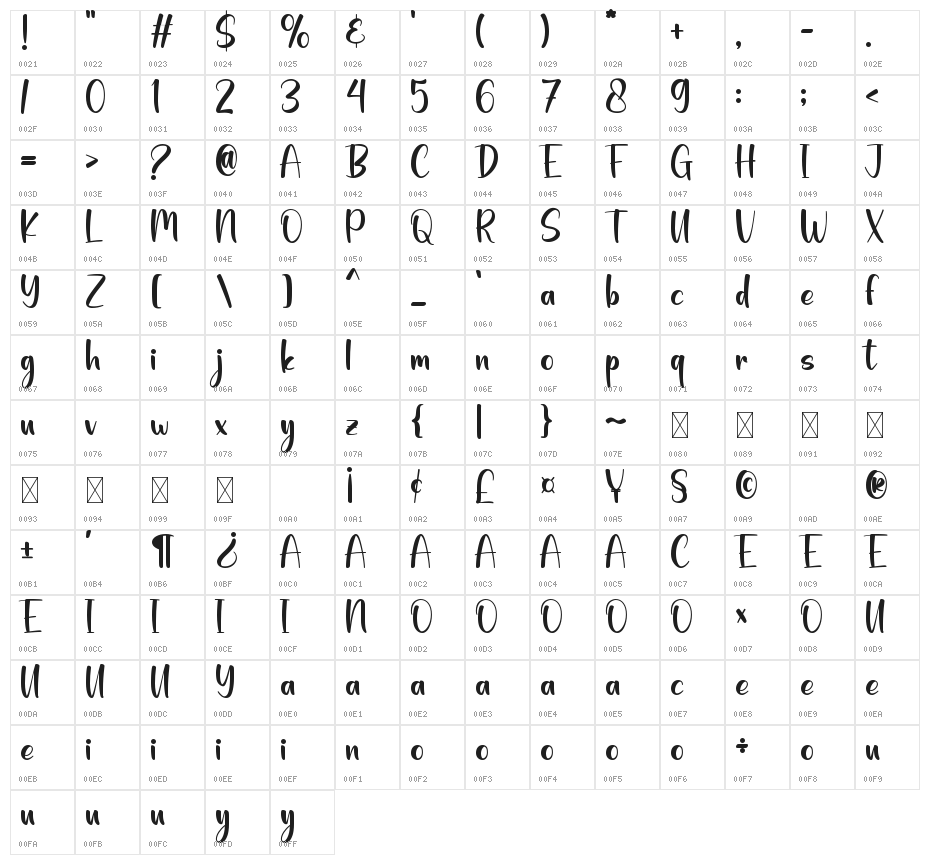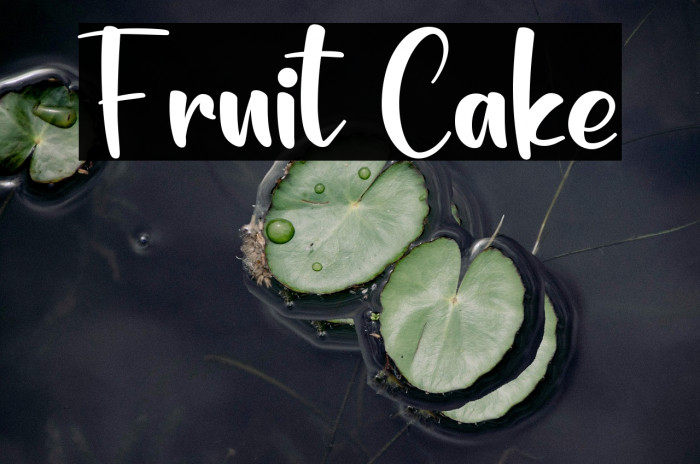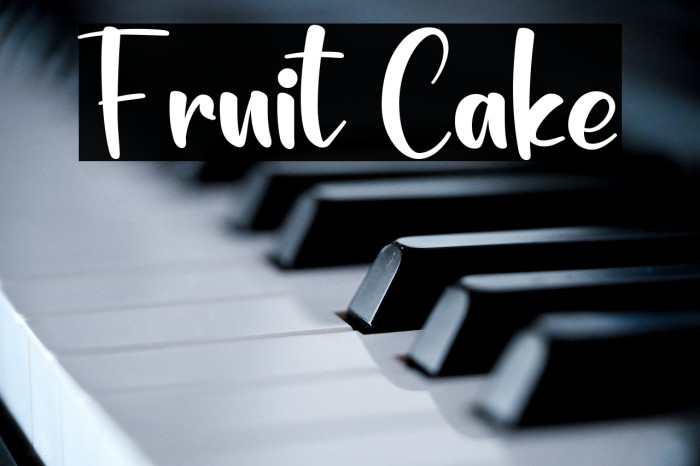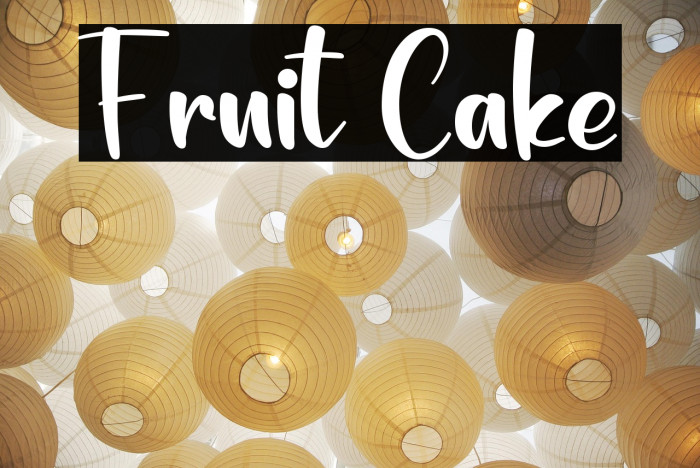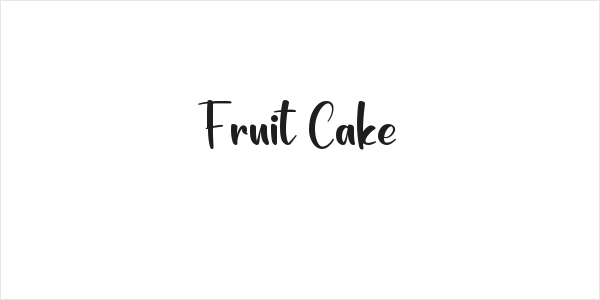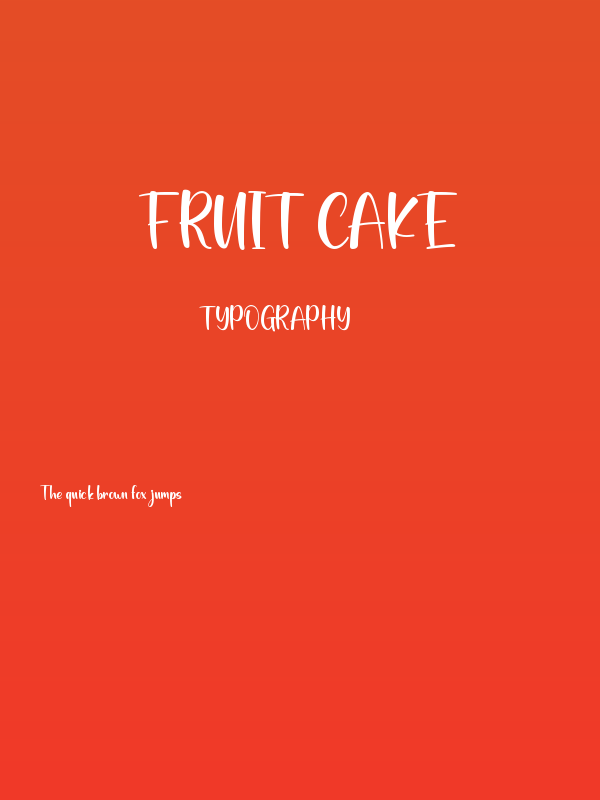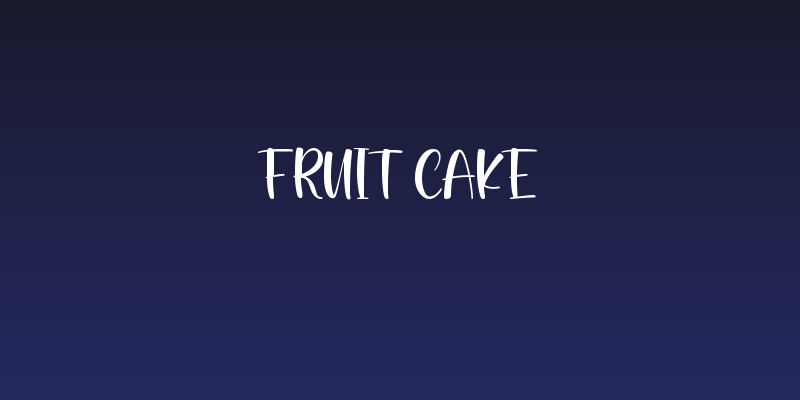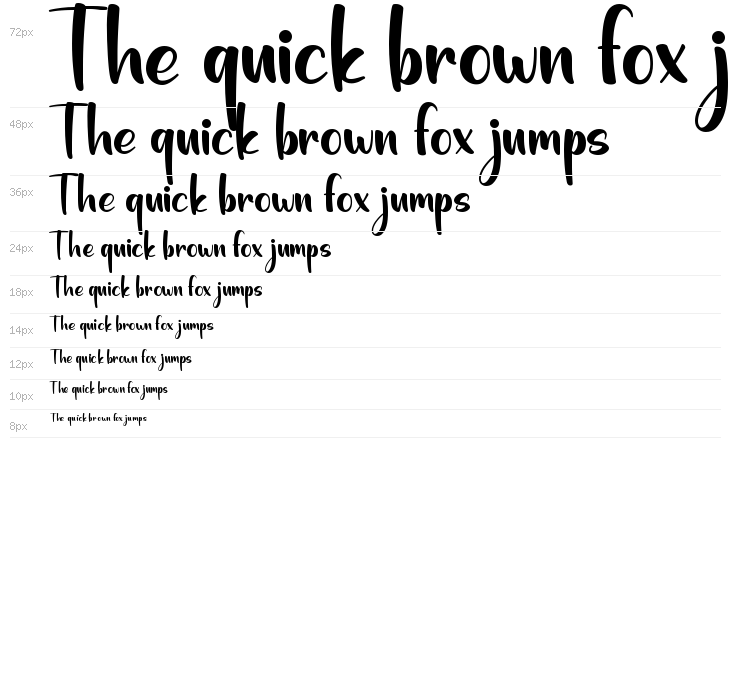
Fruit Cake Font
Fruit Cake Description
A playful and bold handwritten font with a casual and friendly appearance, featuring rounded edges and varying stroke widths.
| Overall Style | Casual and friendly |
| Proposed Projects | Greeting cards, playful branding, children's books. |